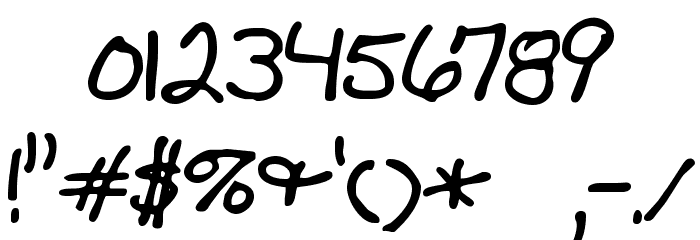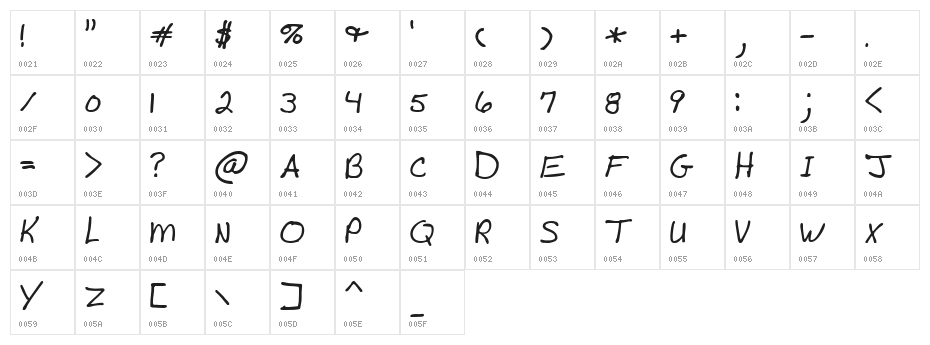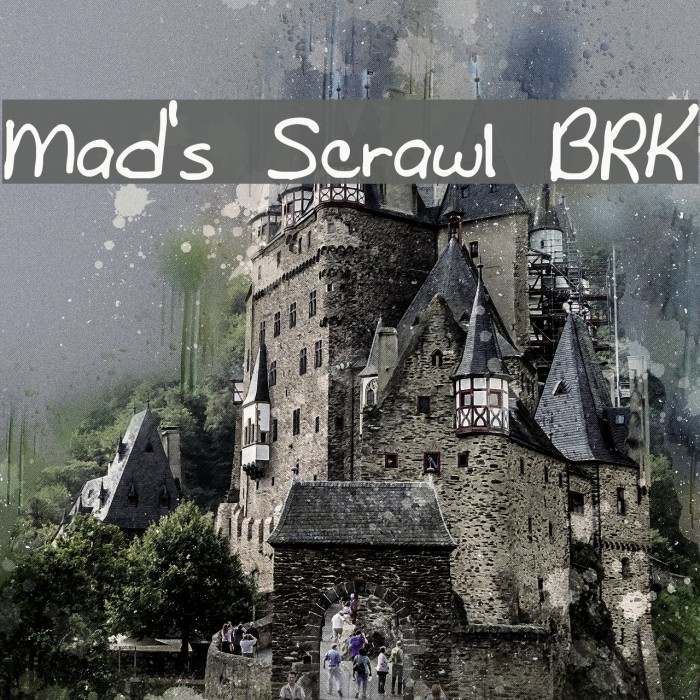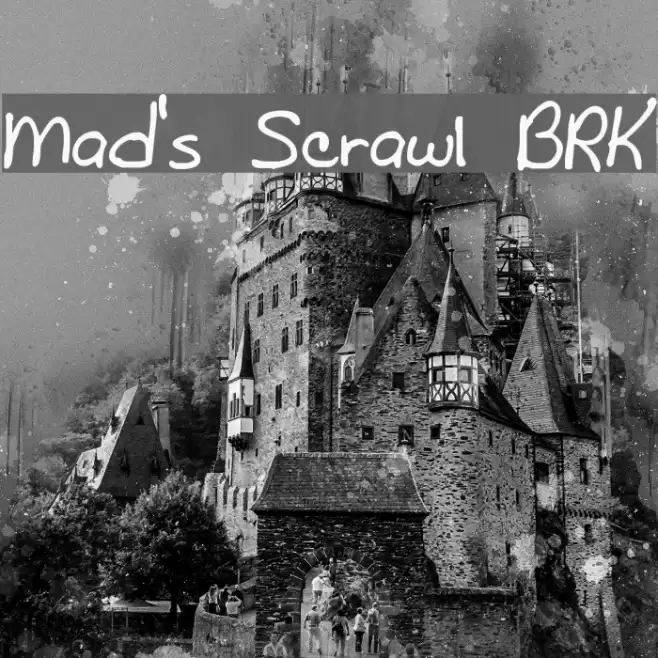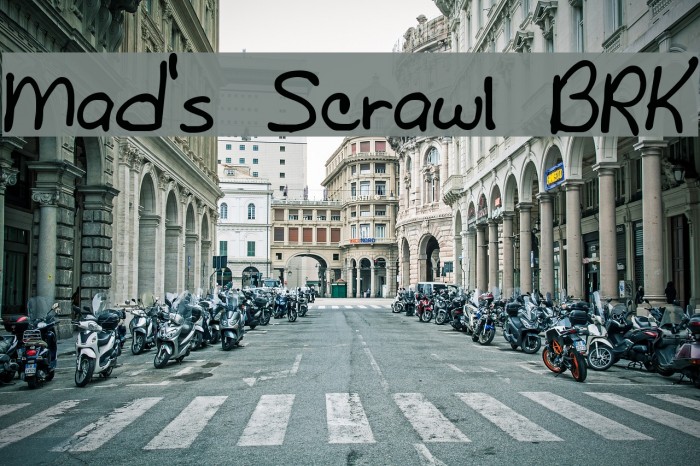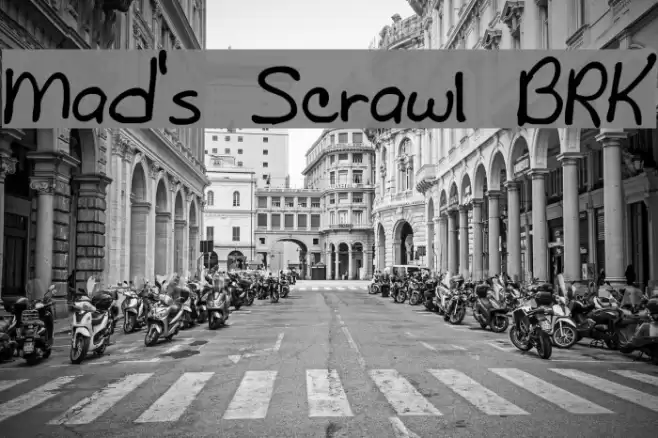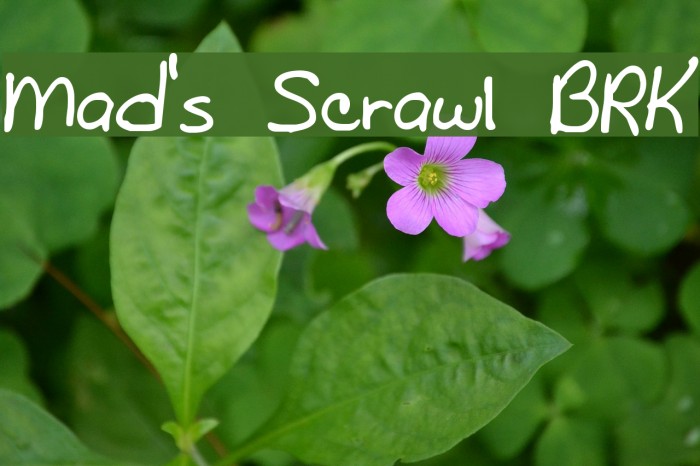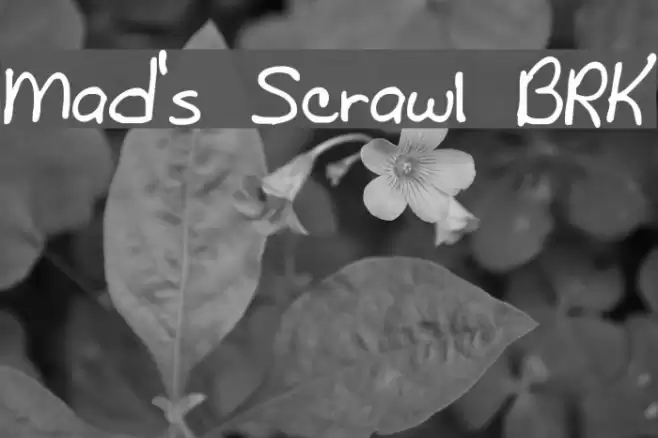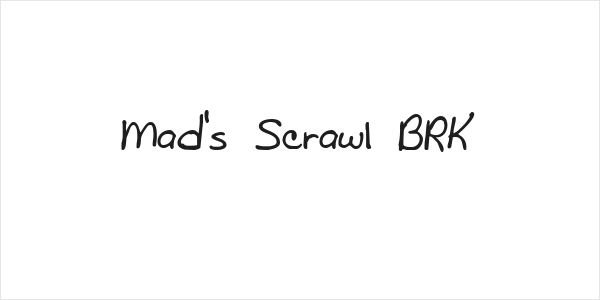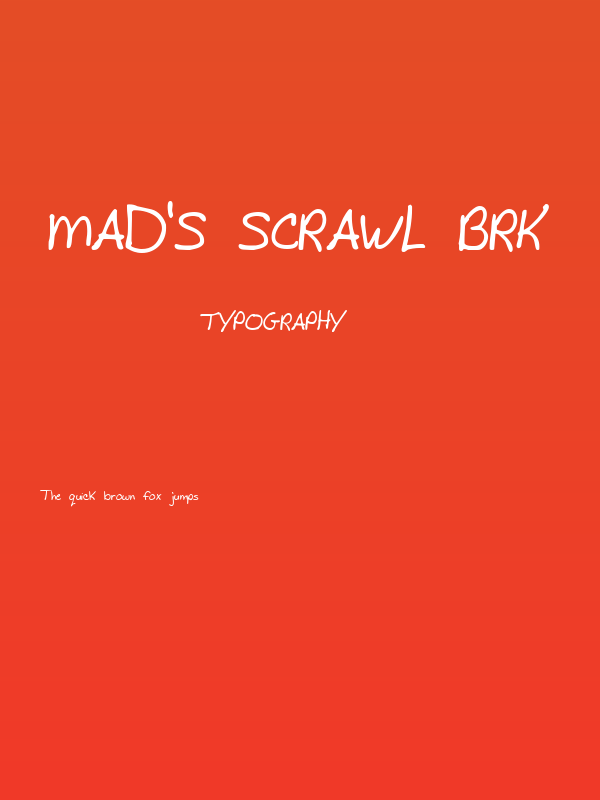
Mad's Scrawl BRK Font
Mad's Scrawl BRK Description
This font exhibits a playful and informal handwritten style, characterized by its loose and casual strokes. The letters are slightly irregular, giving it a natural and spontaneous appearance. The uppercase and lowercase letters maintain a consistent flow, while the numbers and special characters complement the overall aesthetic. The font's design is reminiscent of a personal note or a quick sketch, making it ideal for projects that require a touch of personality and warmth.
| Proposed Projects | Ideal for greeting cards, personal notes, children's books, and creative projects that benefit from a personal touch. |